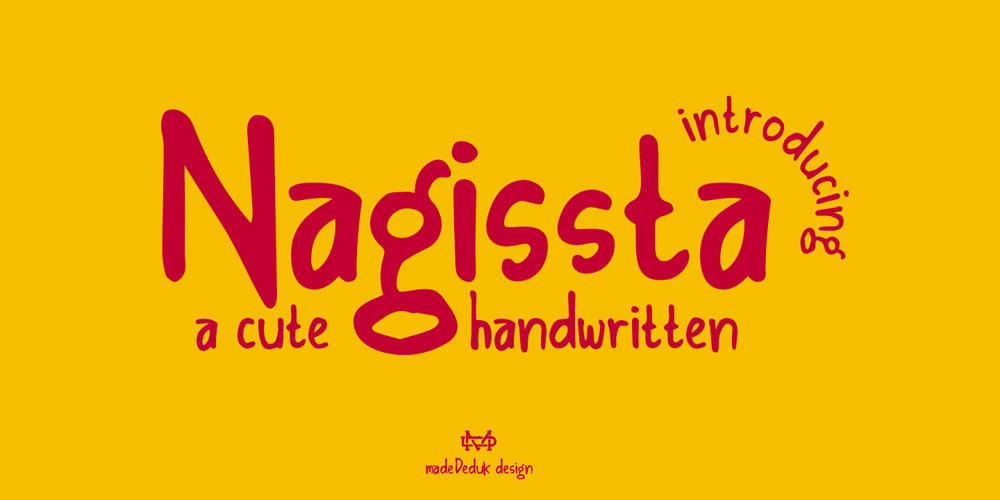
Nagissta
Nagissta font
Nagissta Font Family was designed by madededuk and published by madeDeduk. Nagissta contains 2 styles and family package options. Introducing Nagissta is a cute handwritten font with a matching script and regular will be perfect for book, title branding, product packaging, invitation, quotes, t-shirt, label, poster, logo etc.Feature Uppercase & Lowercase Number & Symbol International Glyphs Multilingual support Ligature Feel free to drop us a message any time and follow my shop for upcoming updatesHope you enjoy it.